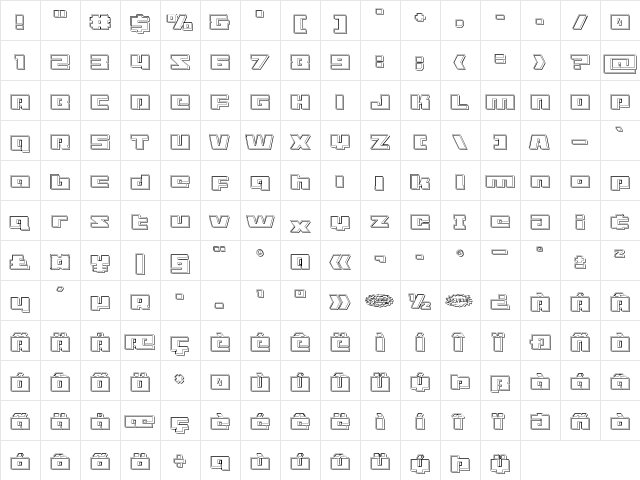
Turbo Charge Engraved Regular Font Preview
Turbo Charge Engraved Regular
Design Context for Turbo Charge Engraved Typeface
Turbo Charge Engraved is built around its visual character rather than neutral utility — its distinctive forms are designed to make an impression at display sizes.
Font Pairing: Pair with a clean neutral sans-serif for body copy to let Turbo Charge Engraved's character lead without overwhelming the composition.
Pro Tip: Treat Turbo Charge Engraved as the centrepiece of your typographic hierarchy. One strong heading set in a decorative face can carry an entire layout.